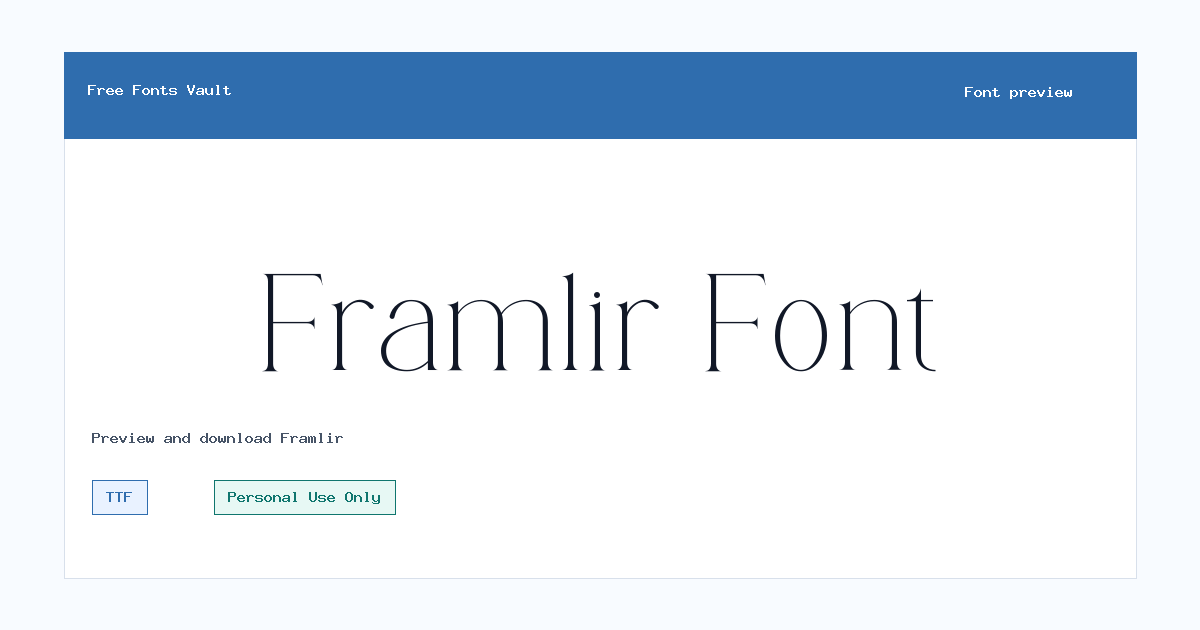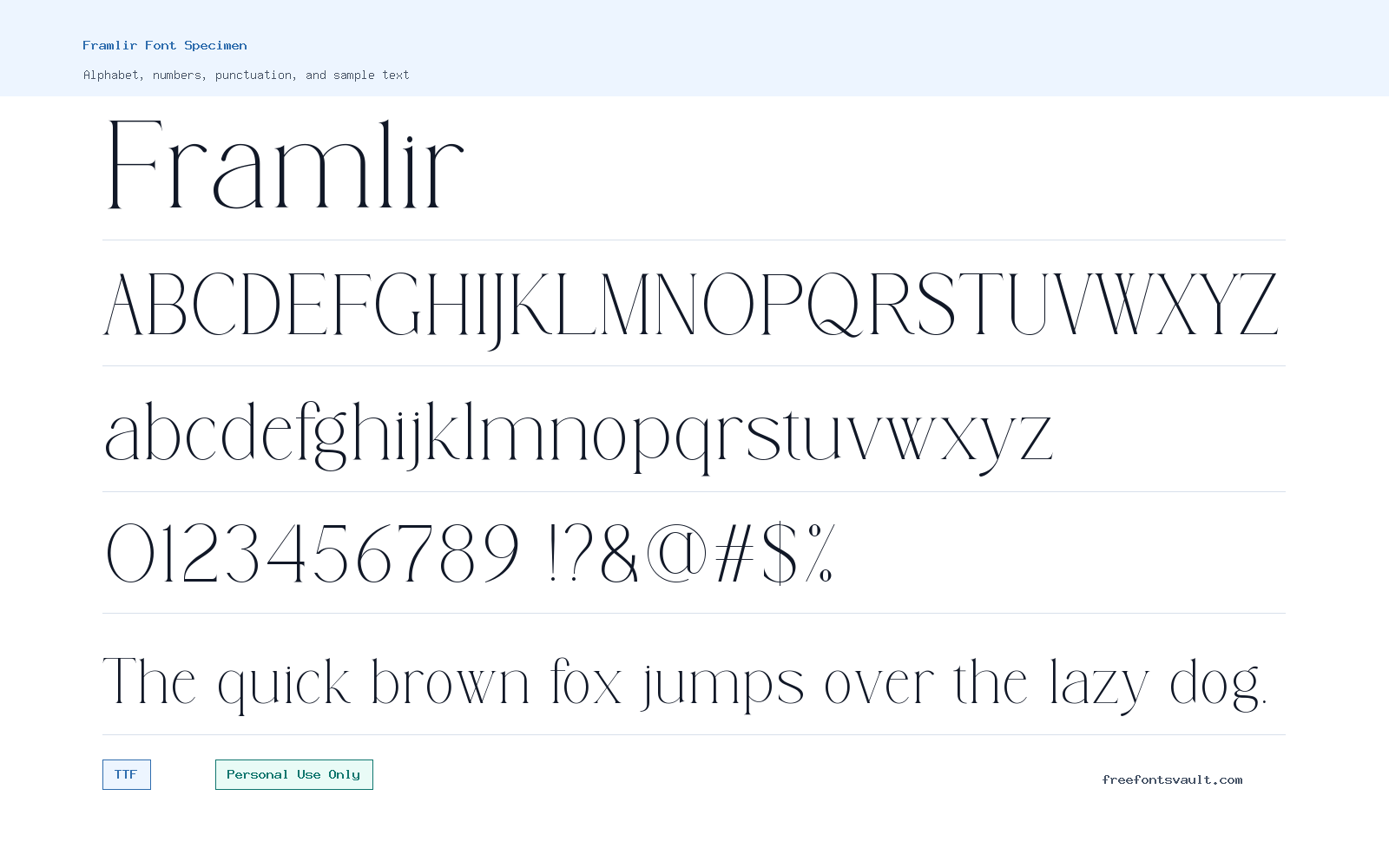
Framlir
Framlir is a serif font for visitors who want a refined text style for personal design tests, visual drafts, and display-focused layouts. The font is marked for personal use only, so it is best treated as a preview or non-commercial option unless you obtain broader rights from the owner.
Framlir works best when you give it room to show its shape. Use the preview box to test names, short titles, initials, poster headings, invitation lines, and logo-style wordmarks before downloading. Because the confirmed files are a regular, normal-style weight, the safest way to judge it is with the exact words you plan to use. Try uppercase and lowercase text, then check spacing around letters such as A, V, W, T, R, and Y if your design depends on a polished wordmark.
For design work, Framlir is most useful as a display or accent choice rather than a full interface system. It can suit personal branding mockups, mood boards, editorial-style graphics, social posts, quote cards, packaging concepts, and poster drafts where a serif voice feels more formal than a plain sans serif. In logo work, test it at several sizes and avoid assuming the raw font file will be final without spacing adjustments. For web mockups, the WOFF file is helpful for browser previews, while the TTF and OTF files are more common for desktop design apps. If you plan to use it on a real public website, product, client project, ad, merchandise item, or monetized design, confirm the correct commercial license first.
• Regular weight with normal style, useful for straightforward previews and single-style display layouts.
• Serif styling, making it a better fit for headings, names, and decorative text than dense body copy.
• Good candidate for short personal-use compositions where letter shape and spacing matter more than long reading comfort.
• Personal logo concepts and wordmark experiments
• Poster titles, quote graphics, and editorial-style headings
• Invitation drafts, name cards, and decorative personal projects
• Portfolio mockups, mood boards, and non-commercial brand studies
• Web layout prototypes that need a serif display tone
Start by testing Framlir with short text, not long paragraphs. Check how your exact title looks at small, medium, and large sizes, then adjust tracking if the letters feel too tight or uneven. Pair it with a quiet sans serif for supporting text so the serif style remains the focus. In a poster or logo mockup, keep the surrounding layout simple and let the word shape carry the visual interest. For web prototypes, load the WOFF file for browser testing, but keep the personal-use license limit in mind before using it anything public or commercial.
Is Framlir good for body text?
Framlir is better tested first as a display font for titles, names, and short phrases. For long paragraphs, pair it with a simpler, highly readable text font.
What should I pair with Framlir?
Try a clean sans serif for captions, menus, descriptions, or body copy. Keeping the supporting font simple helps Framlir stand out in headings and short display text.